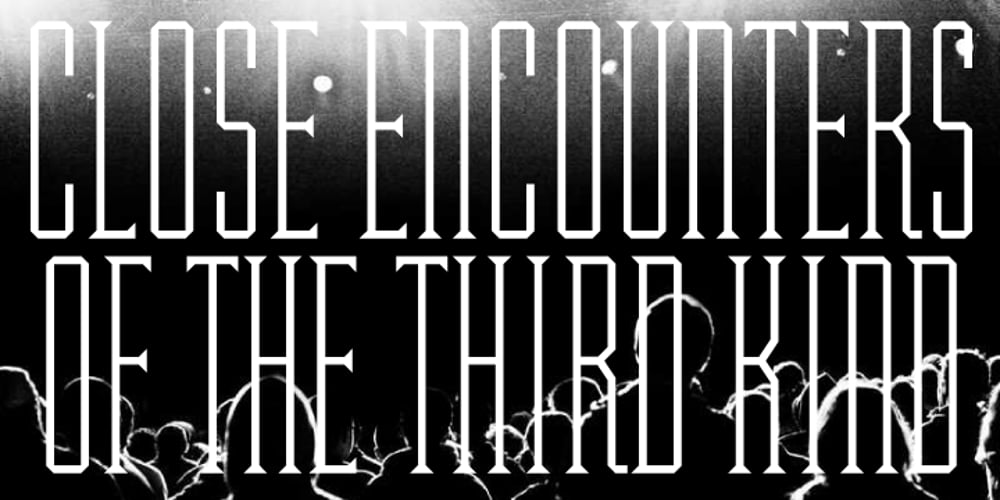
Misses Twiggs
Misses Twiggs font
Misses Twiggs Font Family was designed by Alex Kaczun and published by Type Innovations. Misses Twiggs contains 3 styles and family package options. Misses Twiggs is a contemporary modern serif created by the American type designer Alex Kaczun. It compliments its partner Mister Twiggs and is a perfect marriage of two fonts. Mister Twiggs brings his tall good looks and Misses Twiggs bring her cute little serifs to the relationship. There are absolutely no curves in these elegant typefaces. Both fonts have sharp corners with extra tall capitals and narrow waistlines. Misses Twiggs also comes in 3 flavors: regular, thin and heavy.